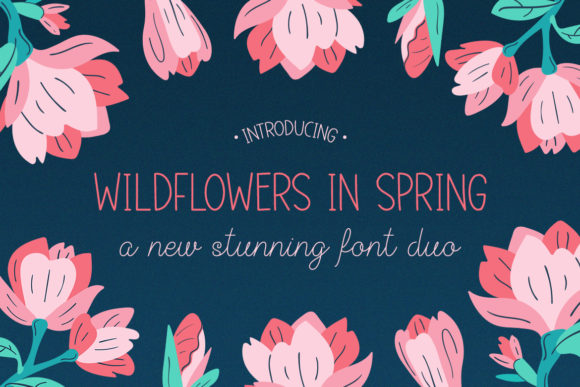
Unleash your creative spirit with Wildflowers in Spring Font, a captivating duo font family that combines the elegance of script with the simplicity of sans serif. Dive into a world of endless possibilities, where your designs bloom with beauty and sophistication.
Indulge in the delicate charm of the script font, reminiscent of handwritten notes penned with care. Each letter dances across the page like a whisper of spring breeze, carrying a touch of whimsy and grace. Let your words flow with the fluidity of this enchanting script, adding a personal touch to your projects.
Experience the crisp, clean lines of the sans serif font, providing a sturdy foundation for your designs. Its minimalist aesthetic complements the script font perfectly, creating a harmonious balance that elevates your creations. The sans serif font exudes a sense of modernity and professionalism, making it ideal for a wide range of design applications.
Wildflowers in Spring Font is a versatile chameleon, adapting seamlessly to various design styles. Whether you're crafting logos, branding materials, invitations, social media posts, or digital art, this font duo will elevate your work to new heights. Its versatility knows no bounds, allowing you to express your creativity in countless ways.
Embrace the allure of Wildflowers in Spring Font and transform your designs into captivating works of art. Its charming script and crisp sans serif will weave a tapestry of visual delight, leaving an unforgettable impression on your audience. Let your imagination run wild and let this font duo be your muse, guiding you towards design brilliance.
Immerse yourself in the enchanting world of Wildflowers in Spring Font, where creativity flourishes and beauty abounds.